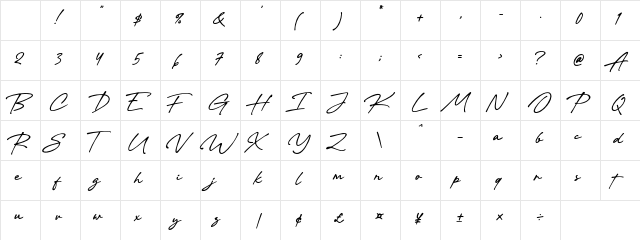
Complete Valen Valentine Script Regular glyph index. Displaying only characters natively supported by Valen Valentine Script Regular font.
Valen Valentine Script flows with the natural rhythm of handwritten lettering, making it ideal for designs that call for warmth and personal expression.
Font Pairing: Combine Valen Valentine Script with a simple geometric sans for maximum contrast - the tension between flowing curves and clean structure is a classic typographic pairing.
Pro Tip: Use Valen Valentine Script for short runs of text - names, titles, or taglines. Extended body copy in script faces tires the eye quickly.